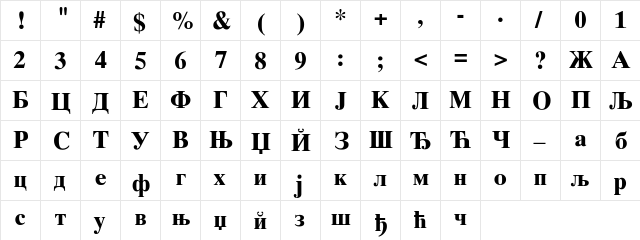
CTimes Bold Regular
Design Context for CTimes Bold Typeface
CTimes Bold offers clean, dependable letterforms without strong stylistic allegiance, making it a practical choice for designers who need flexibility. Its bold stroke weight gives it real presence on the page.